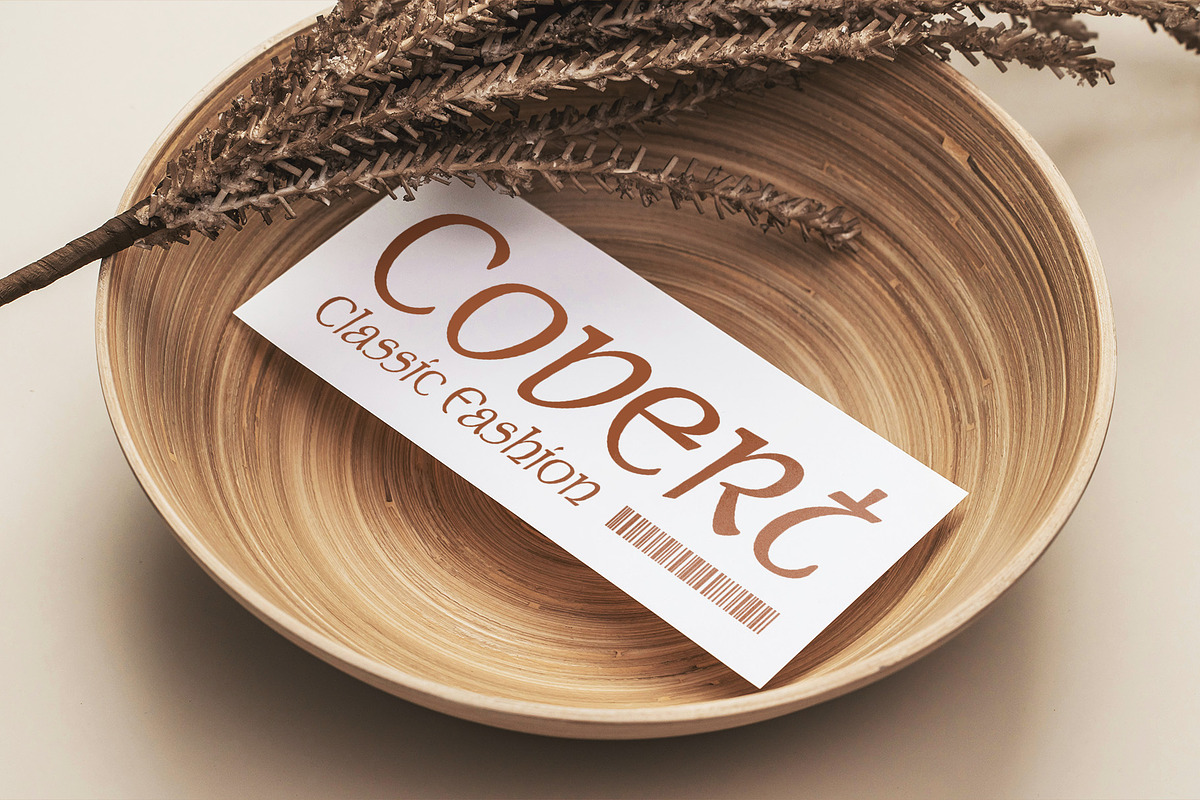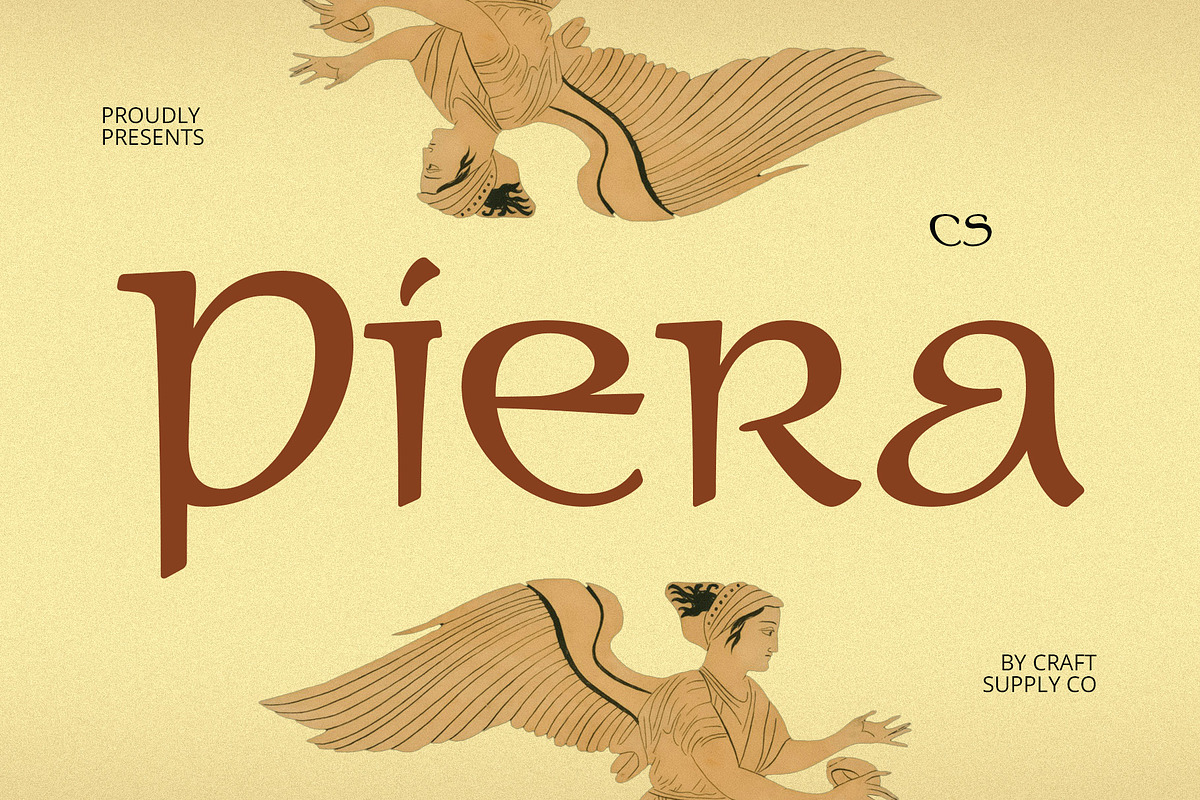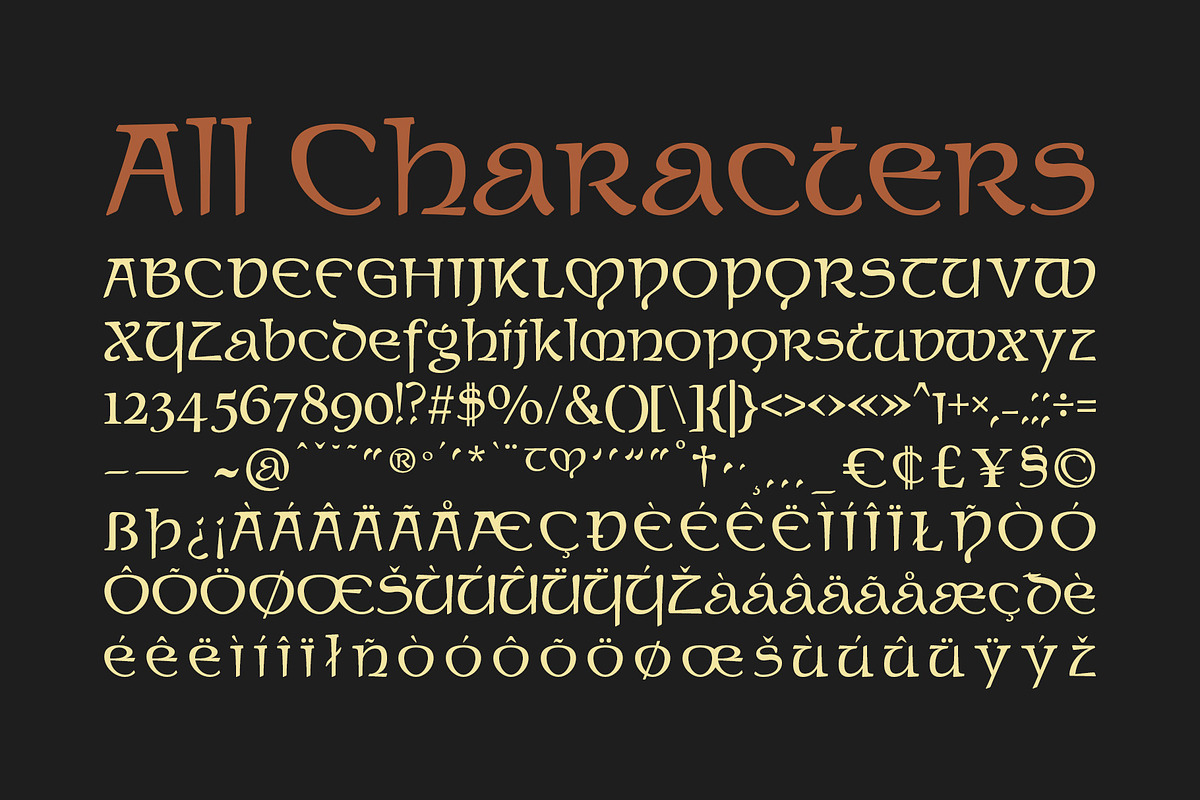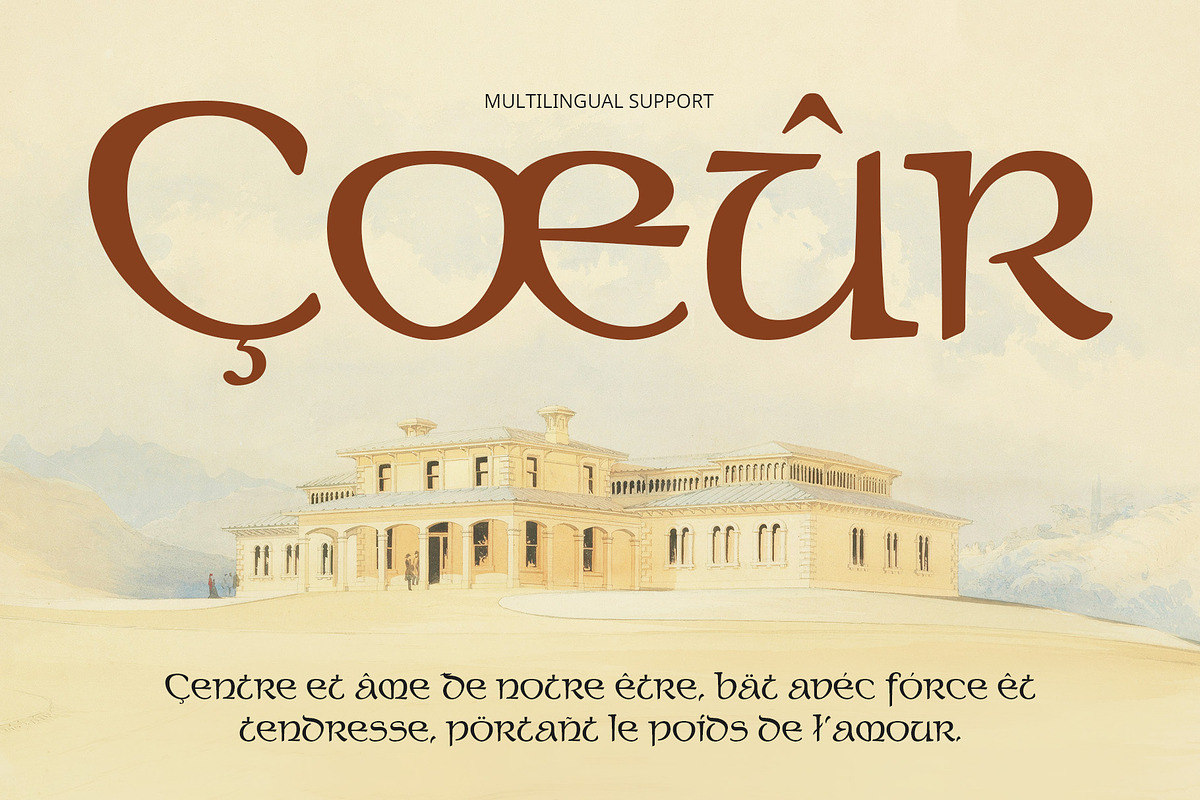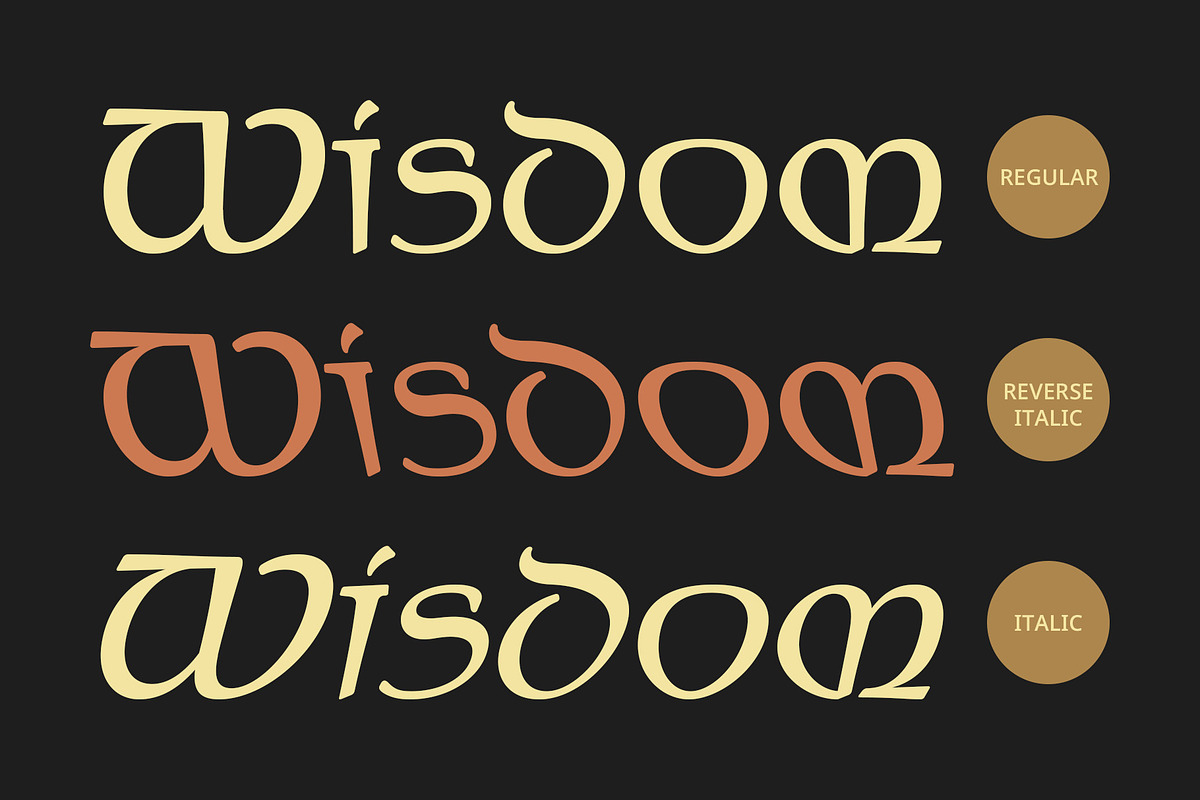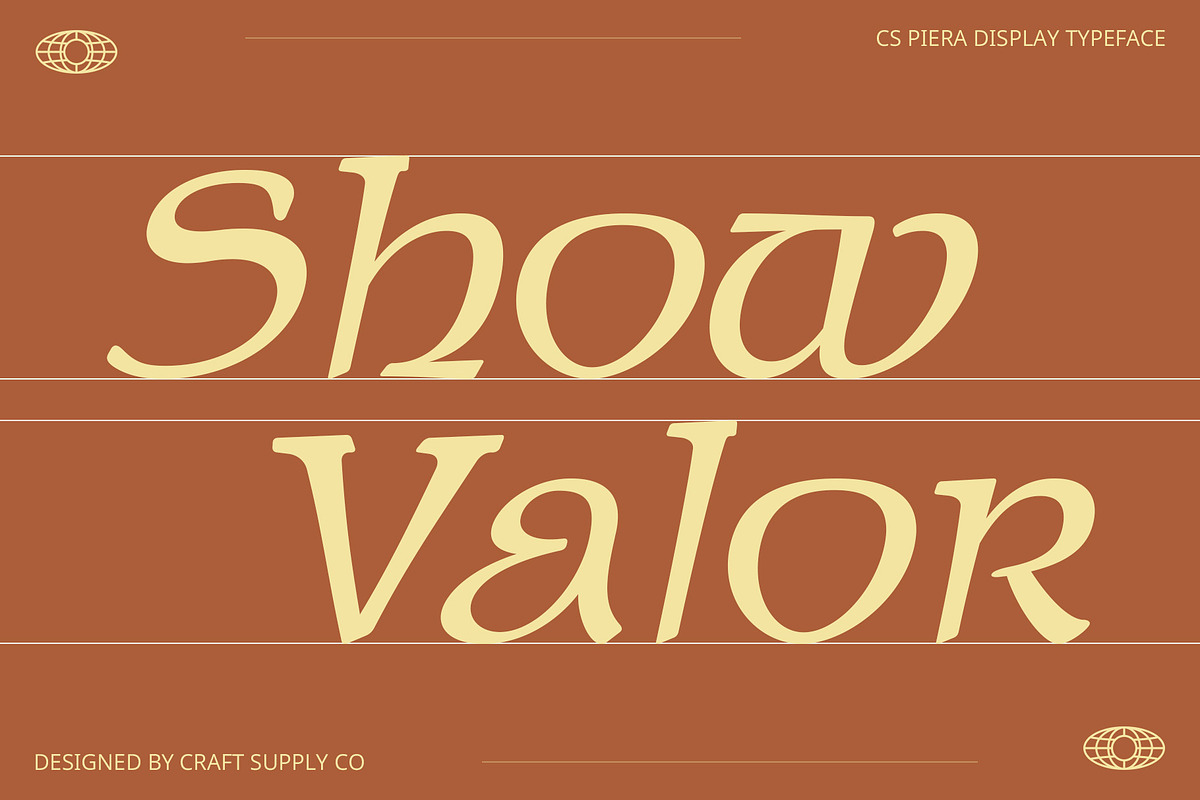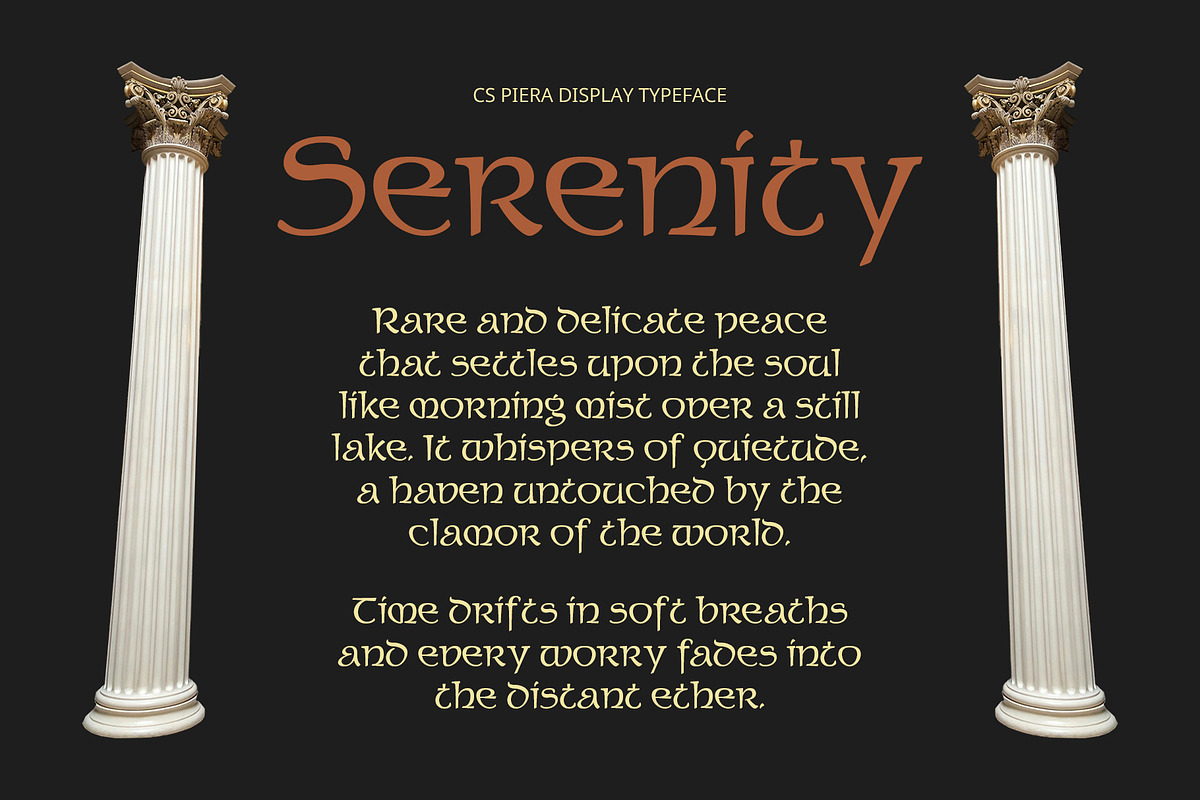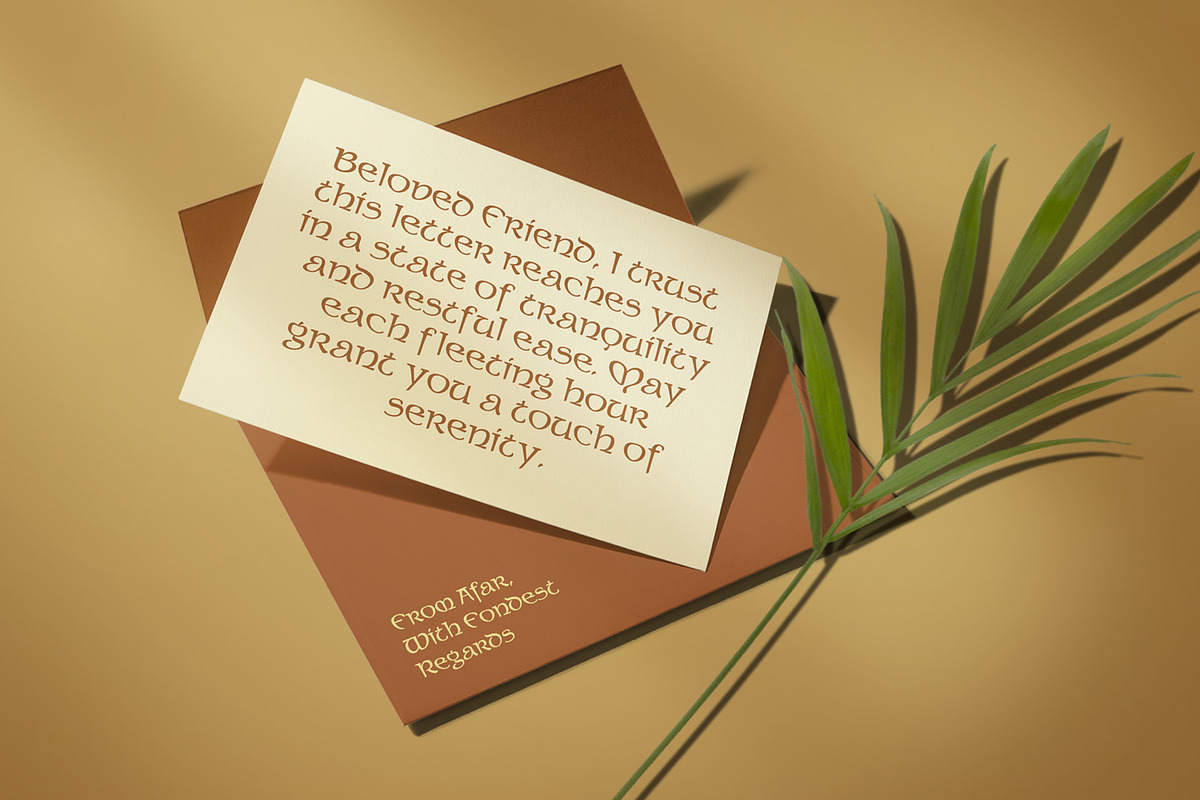
CS Piera – Uncial Font
CS Piera – Uncial Font: Timeless Elegance with a Medieval Touch
Classic Uncial Design with Round, Curved Characters CS Piera is a display font with a classic uncial design, featuring round and flowing letterforms inspired by medieval handwriting styles. Its bold strokes and soft curves combine to create a sense of elegance, nobility, and authenticity. This font’s unique shape and historic roots evoke a timeless charm, making it ideal for projects seeking a vintage or classical aesthetic.
Exuding Nobility and Sophistication The bold strokes and rounded forms of CS Piera convey a sense of strength and grace, perfect for projects that demand an air of prestige. Whether used for royal branding, historical events, or formal invitations, this font adds an aristocratic touch, elevating any design with its sophisticated yet approachable style.
Perfect for Historical and Classical Designs CS Piera is especially suited for designs that require a historical or regal touch. Its uncial roots make it ideal for projects that evoke the past, including royal branding, medieval-themed events, or formal invitations. The font’s rich, vintage atmosphere brings depth and authenticity to any creative endeavor, making it perfect for works that aim to transport audiences to a time of classical elegance.
- CS Piera Regular
- CS Piera Italic
- CS Piera Reverse Italic